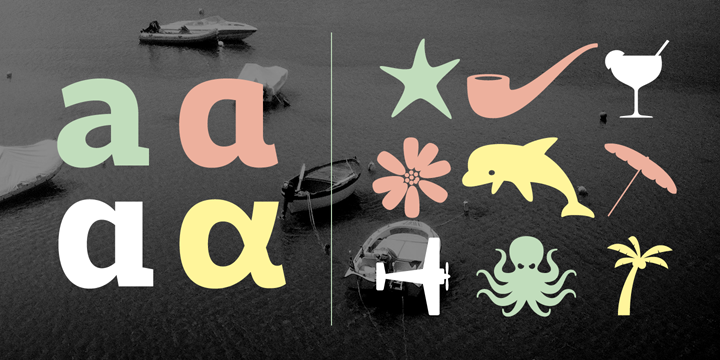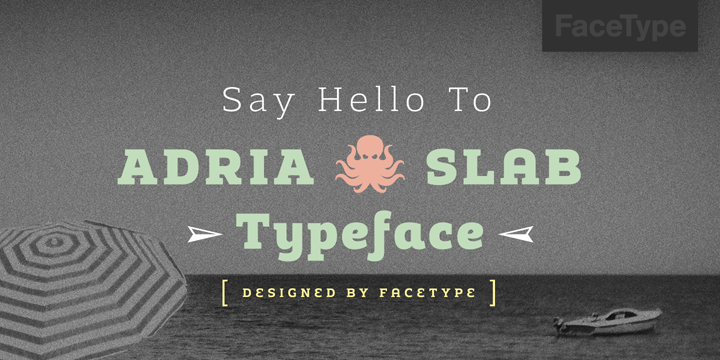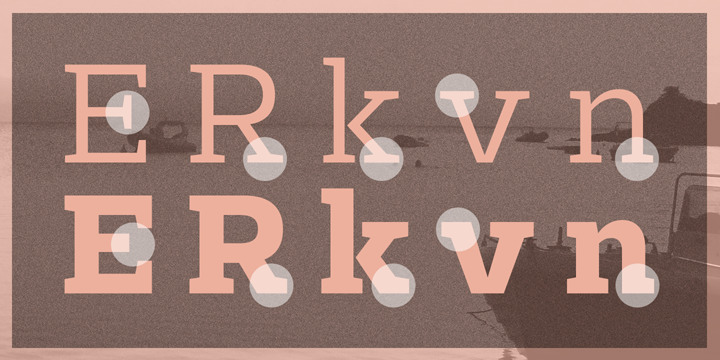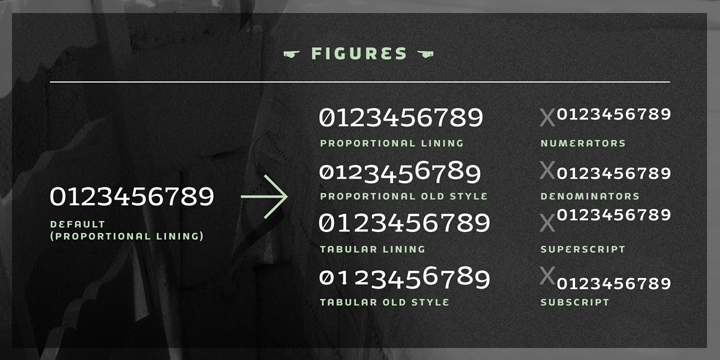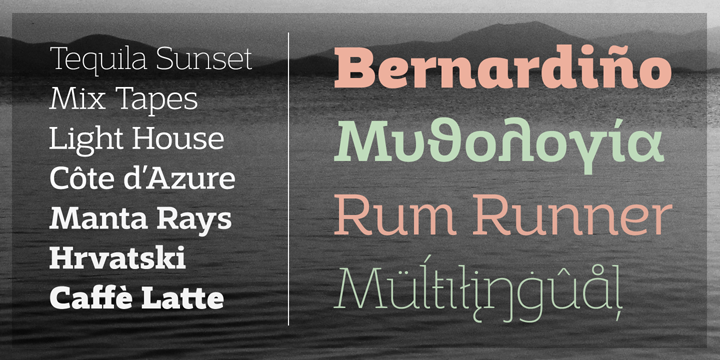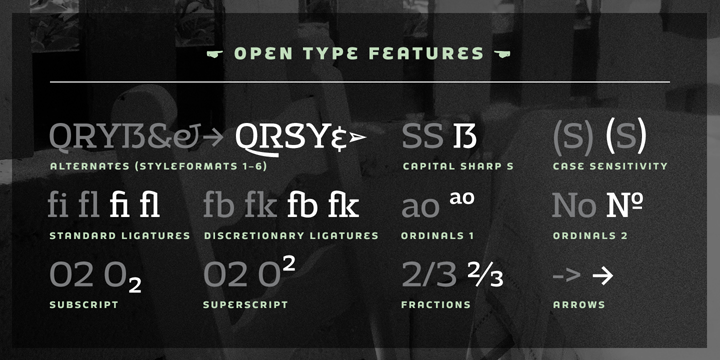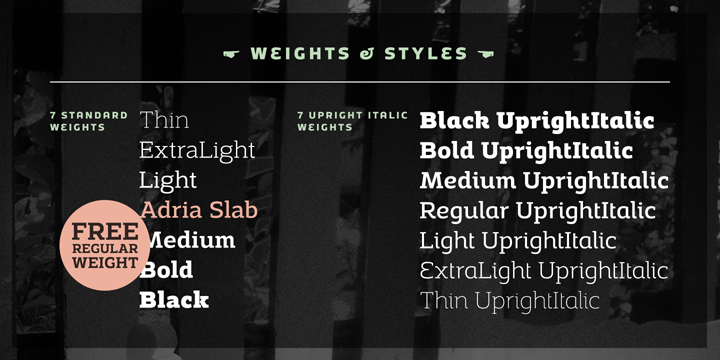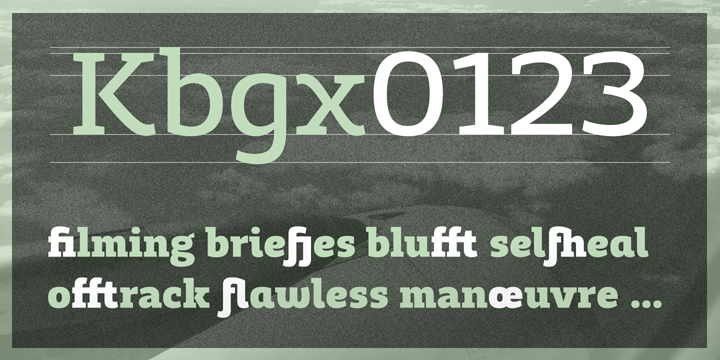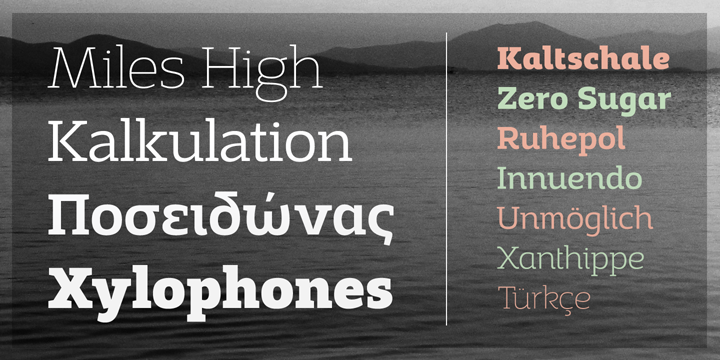
Adria Slab is a slab serif font family. This typeface has fourteen styles and was published by FaceType.
Adria Slab is a smooth slab serif typeface that comes in seven weights and charming upright italics. Try combining it with its super friendly family member Adria Grotesk.
Enjoy making great typography with a vast choice of lining, tabular and old style figures, numerators, denominators, tabular figures, fractions, ligatures, some sweet symbols and even alternate arrows. Adria Slab was designed by Marcus Sterz.